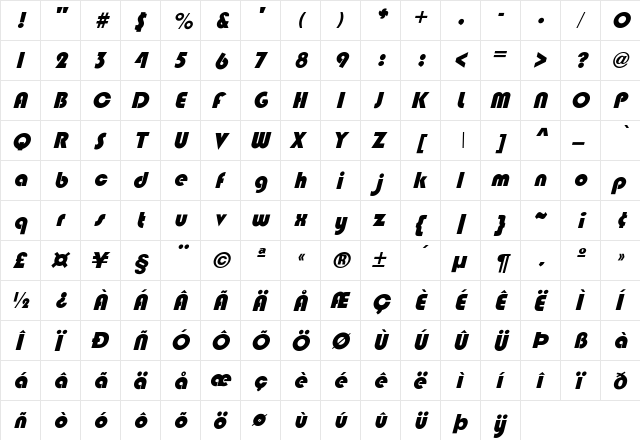
Hip Hop Extra Regular
Design Context for Hip Hop Extra Typeface
Hip Hop Extra offers clean, dependable letterforms without strong stylistic allegiance, making it a practical choice for designers who need flexibility.